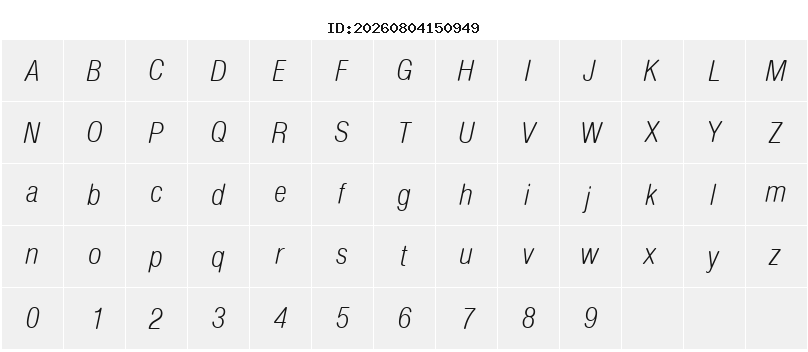
About NimbusSanDLigConItaRo1.ttf
NimbusSanDLigConItaRo1.ttf is a modern, elegant sans-serif font designed for ultimate readability and visual harmony. Perfect for branding, headlines, web design, and print materials.